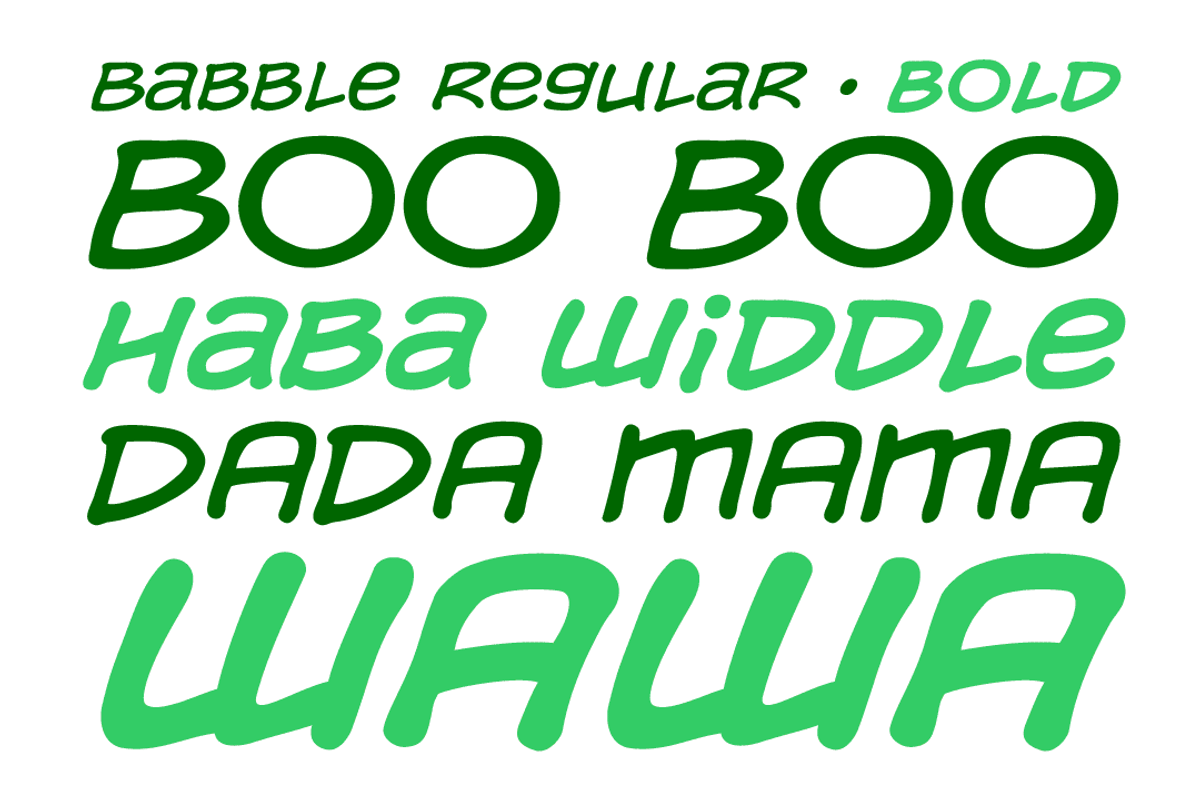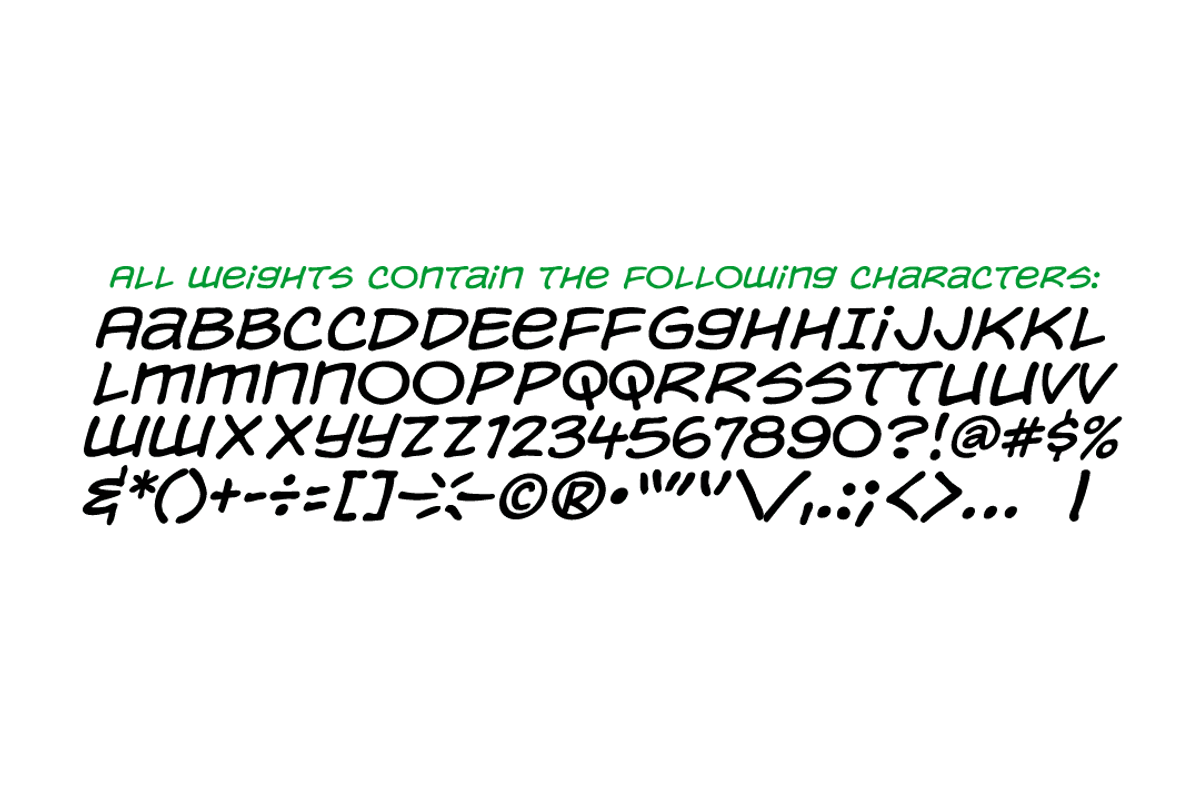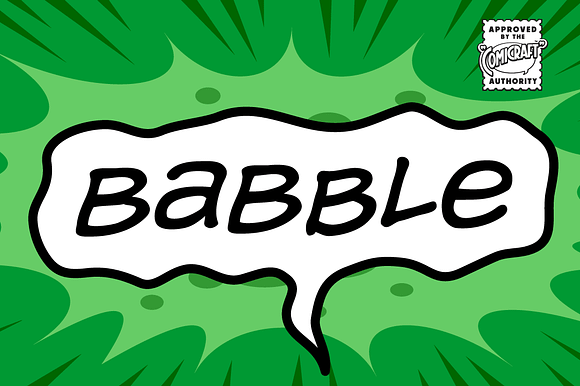
Babble
Babble go gaga? Babble a liddle baba aba dittle boo-boo? Babble gotta Owie? Babble wanna see dada go bonk? See dada go WAAHHH?! Babble wanna bockle? Babble wanna see mama? Babble wanna have milky milky num-nums? Ahhh... Babble id soooooooo cuuuuuute! Dada and Mama love Babble. Big Hug, babble!
Babble by Comicraft Fonts fits naturally into Branding, posters, packaging, typography.